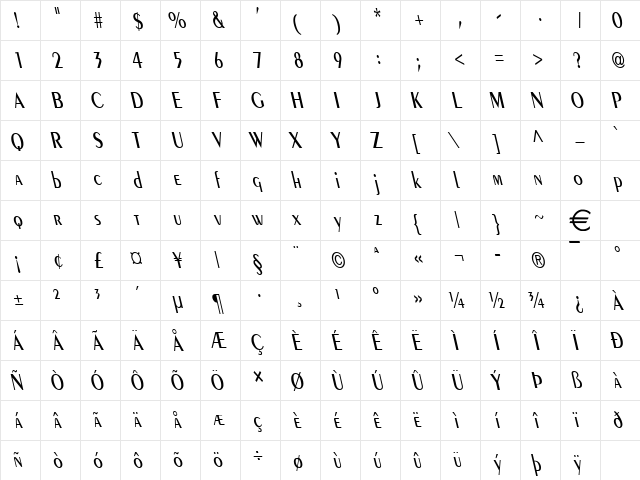
PareCondensedReverse Italic
Design Context for PareCondensedReverse Typeface
PareCondensedReverse offers clean, dependable letterforms without strong stylistic allegiance, making it a practical choice for designers who need flexibility. The slanted form adds forward momentum and visual energy. Its narrow stance lets it pack a punch even in space-constrained designs.
Pro Tip: Use PareCondensedReverse for emphasis, pull quotes, and subheadings where its slanted energy can add rhythm to the layout.